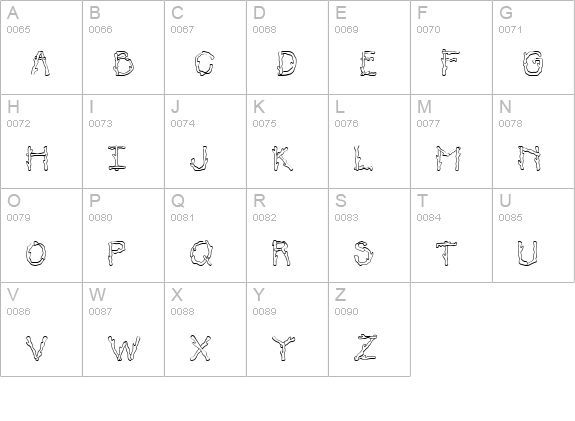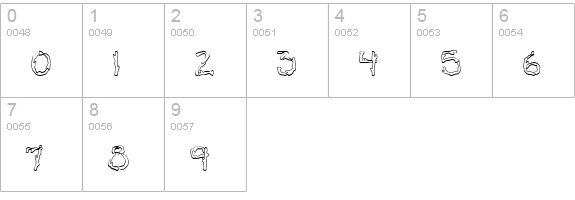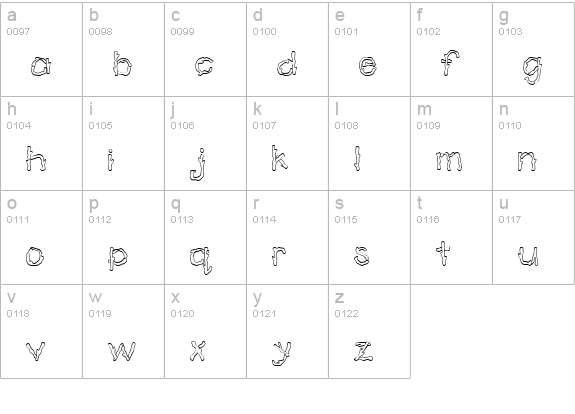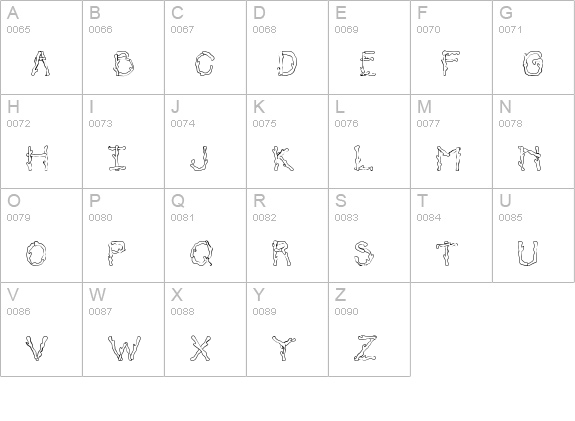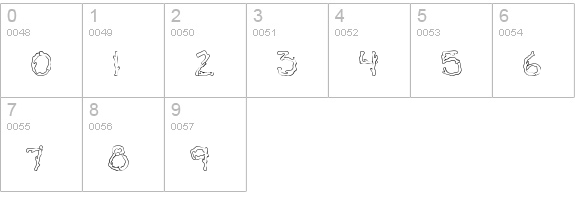
CK Twigs Font Details
Introducing CK Twigs font, a whimsical and elegant typeface that will bring a touch of charm to your designs. This unique font features delicate twig-like elements that gracefully flow across each letter, adding a natural and organic feel to your projects. CK Twigs font is perfect for branding, invitations, packaging, and more, giving your designs a sophisticated and artistic touch. And the best part? CK Twigs font is available for free download at FontsMarket.com. Don't miss out on this stunning font that will surely elevate your designs and captivate your audience. Download CK Twigs font today and let your creativity bloom!